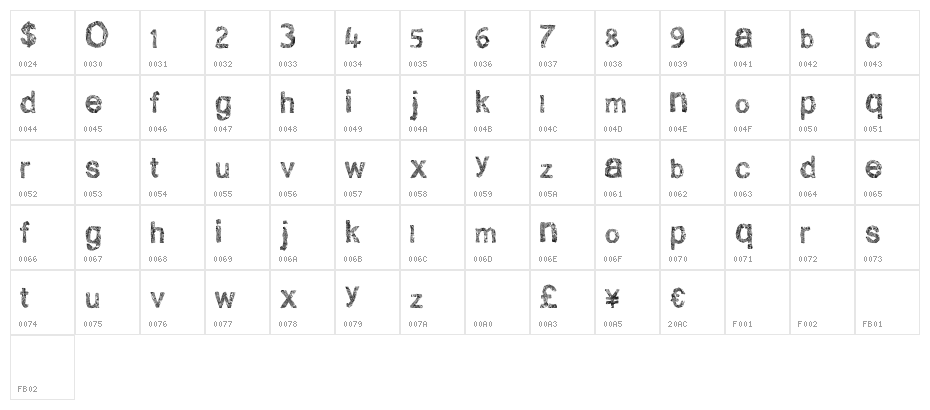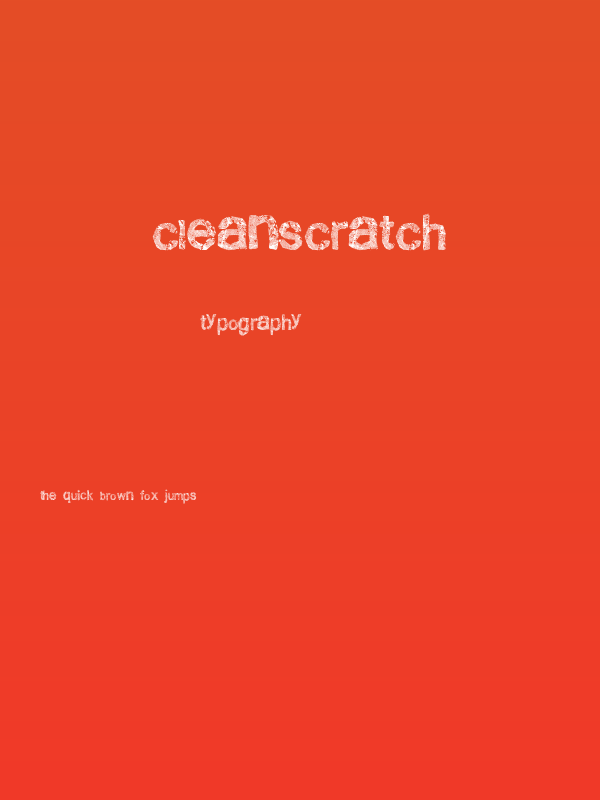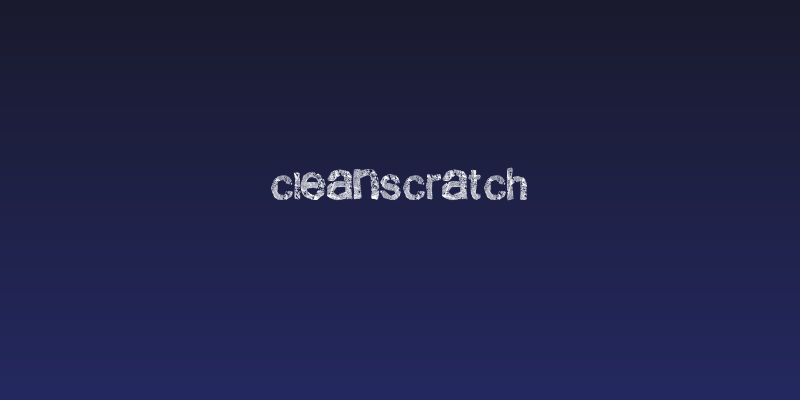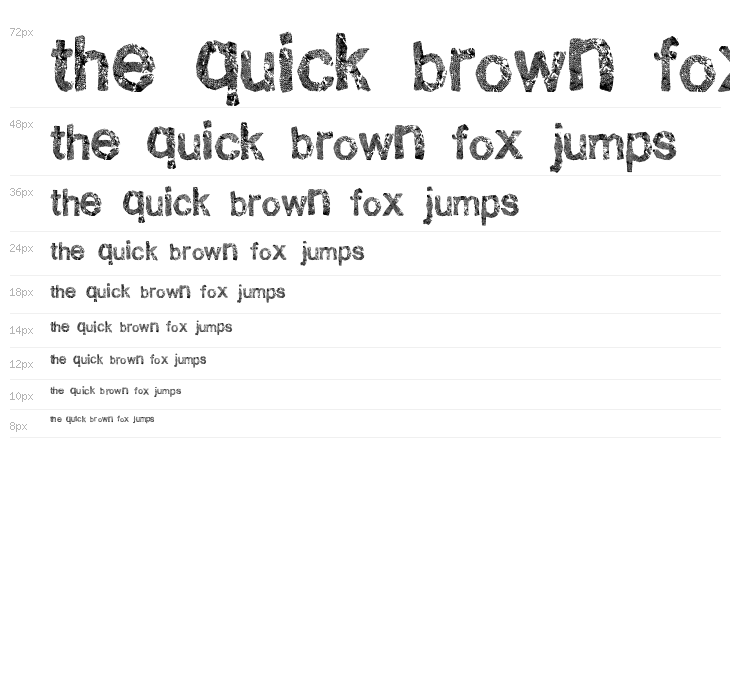
CleanScratch Font
CleanScratch Description
This font features a unique, textured design that resembles a scratchy, distressed surface. Each character is filled with a pattern that gives it a rugged and raw appearance, making it stand out with a bold presence. The letters are slightly irregular, adding to the hand-crafted feel of the font. The uppercase and lowercase letters maintain a consistent style, with numbers and special characters following the same textured theme. This font is ideal for projects that require a gritty, urban aesthetic or a design that needs to convey a sense of edginess and individuality.
| Proposed Projects | Ideal for album covers, streetwear branding, urban-themed posters, and edgy graphic design projects. |